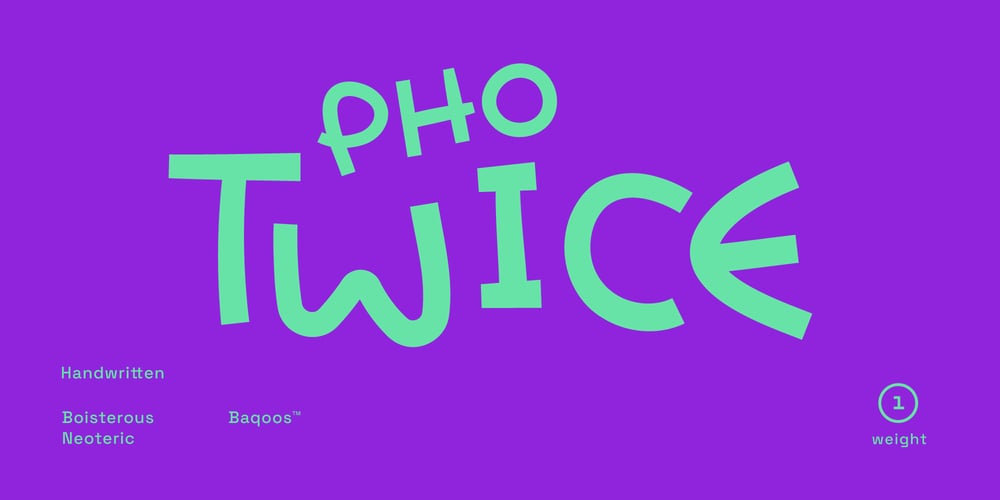
Pho Twice Font Family was designed by Andrew Seah and published by Baqoos. Pho Twice contains 1 styles and family package options. Pho Twice is a boisterous neoteric handwritten typeface apt for headline, editorial, branding, packaging, printed materials and typographic applications. 200+ glyphs including punctuation and numerical.